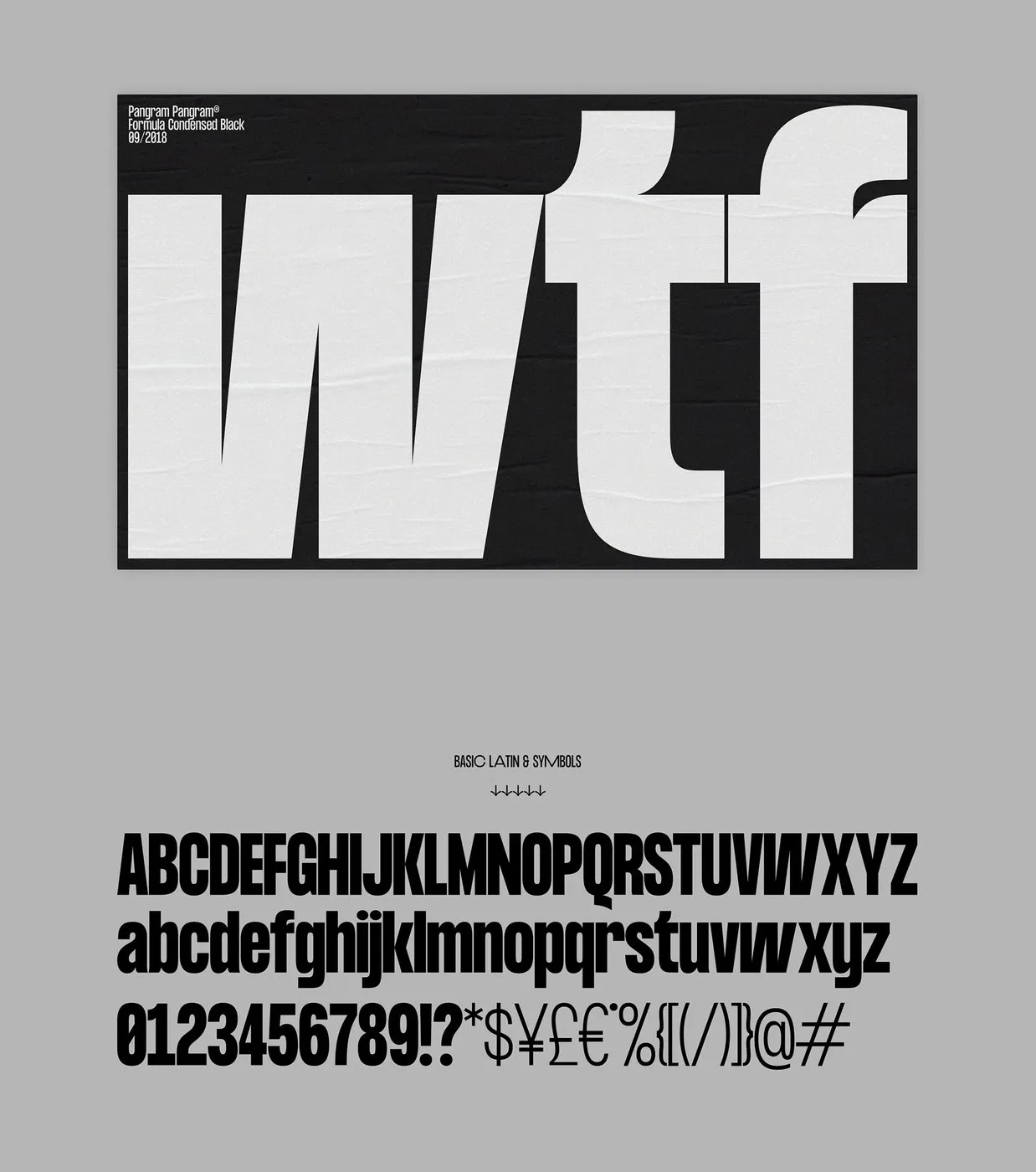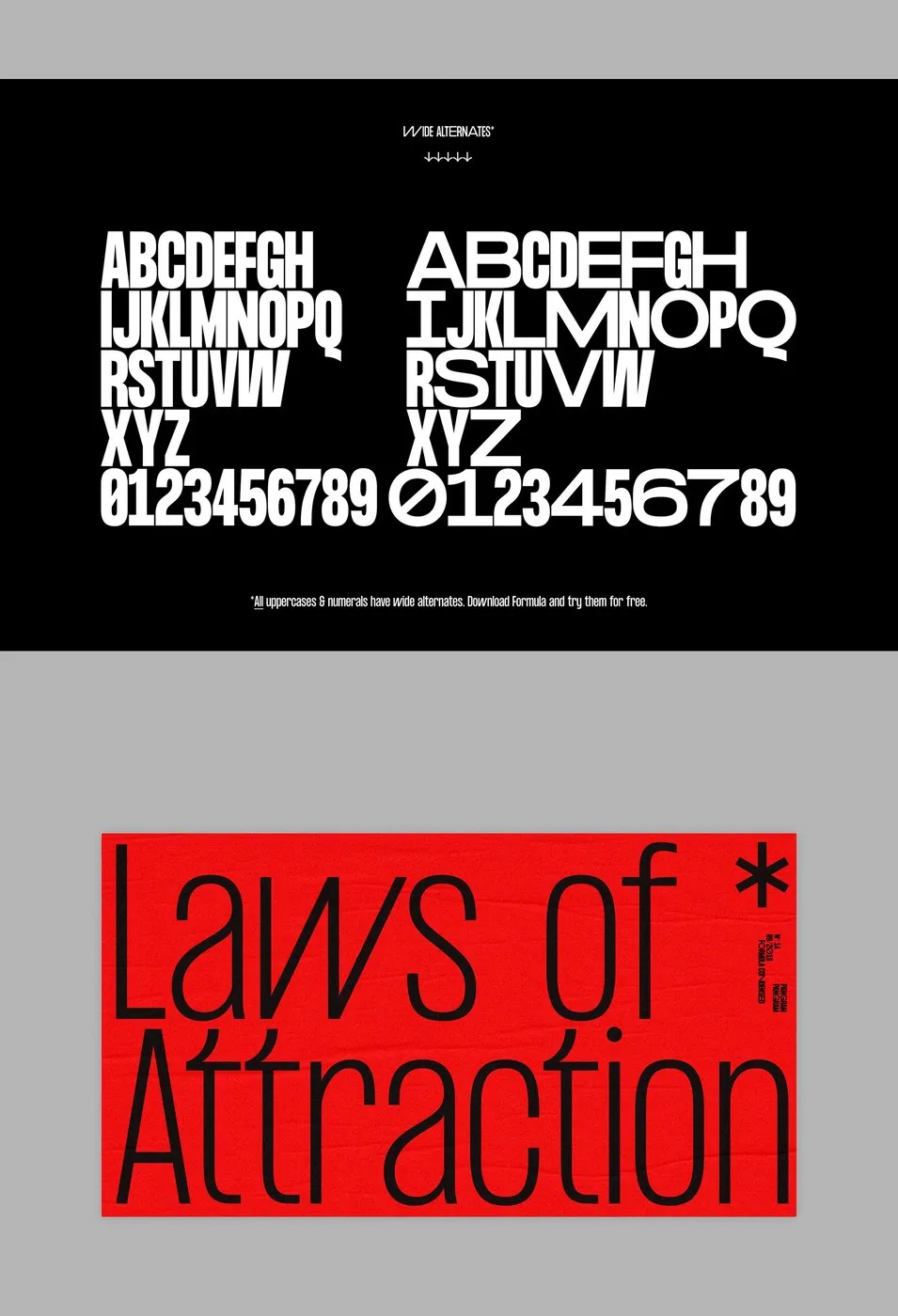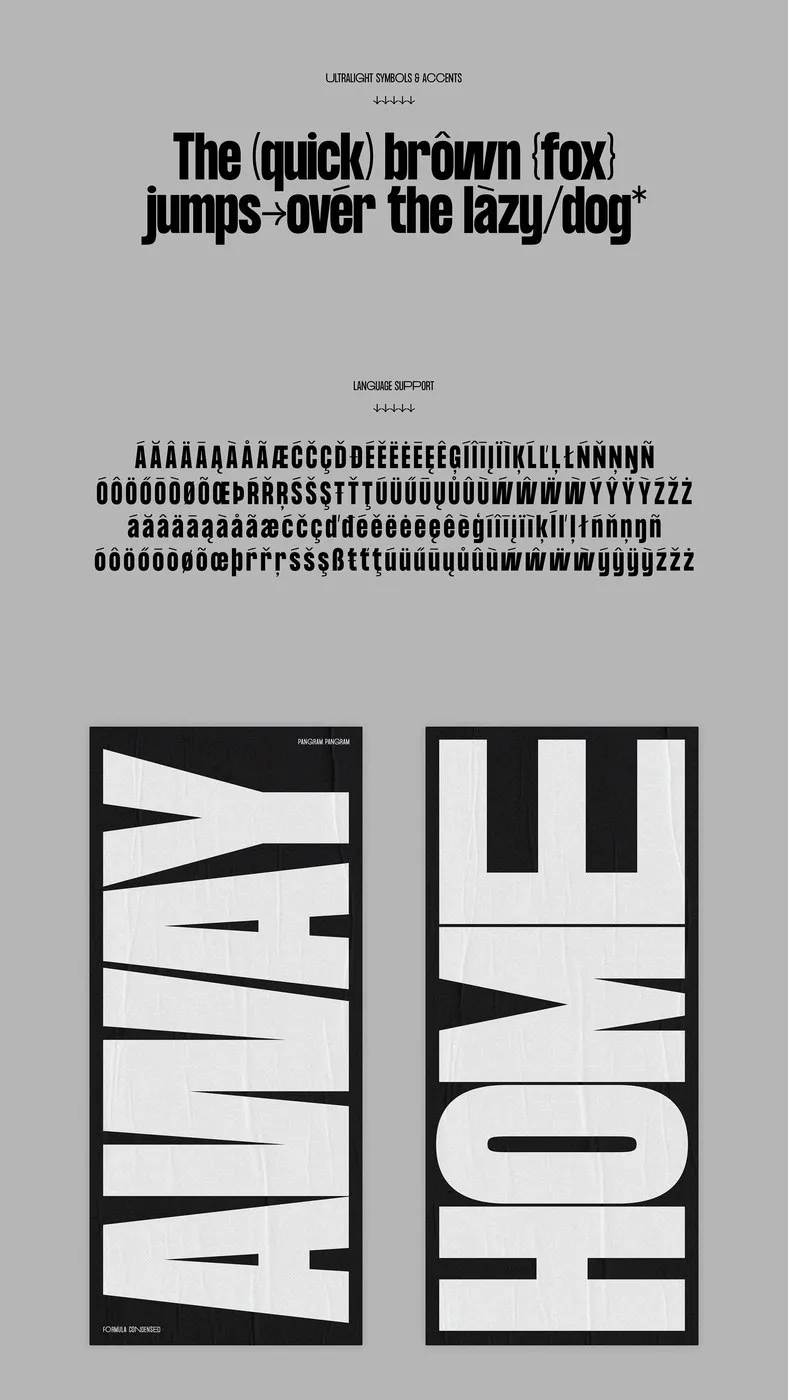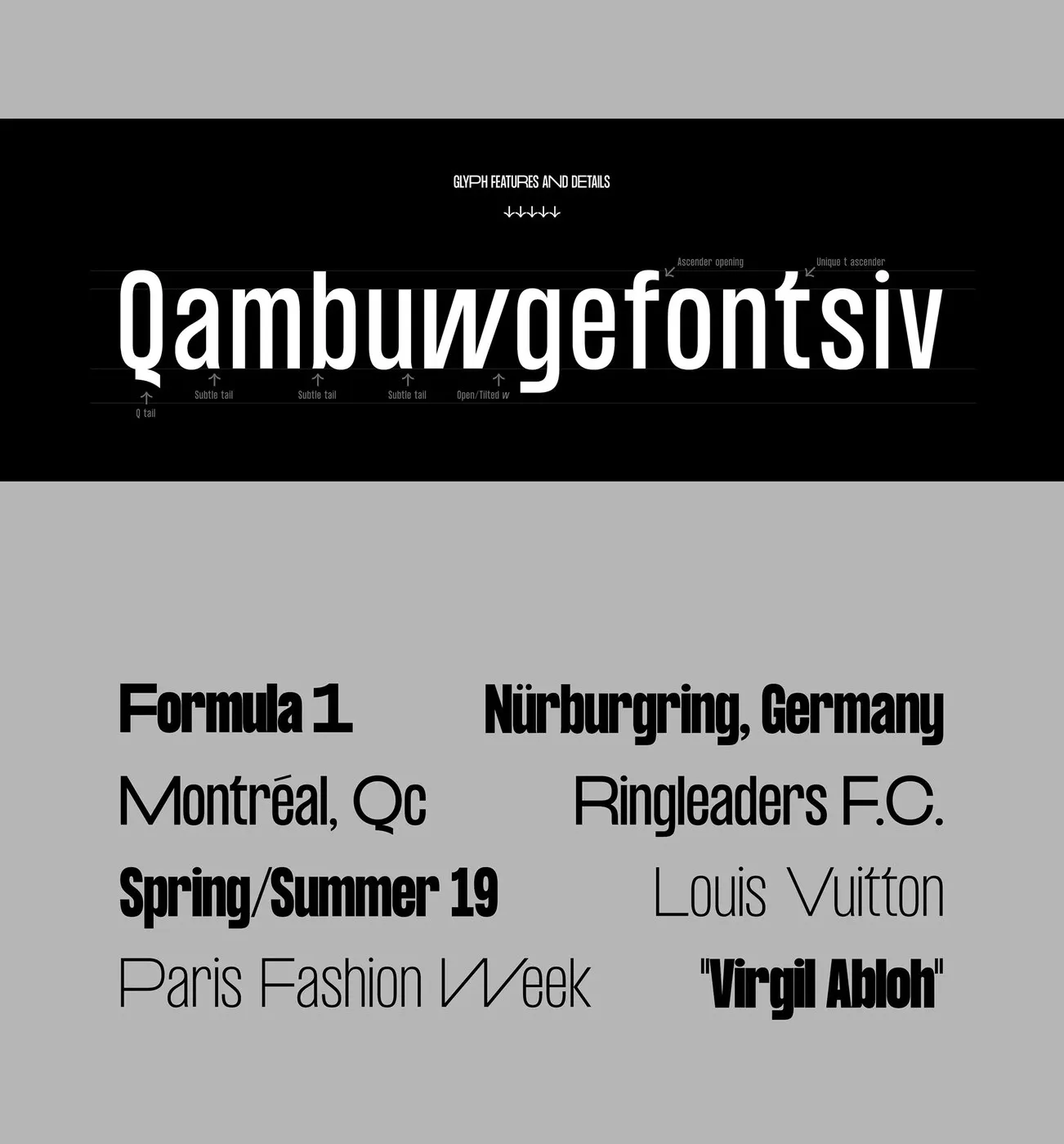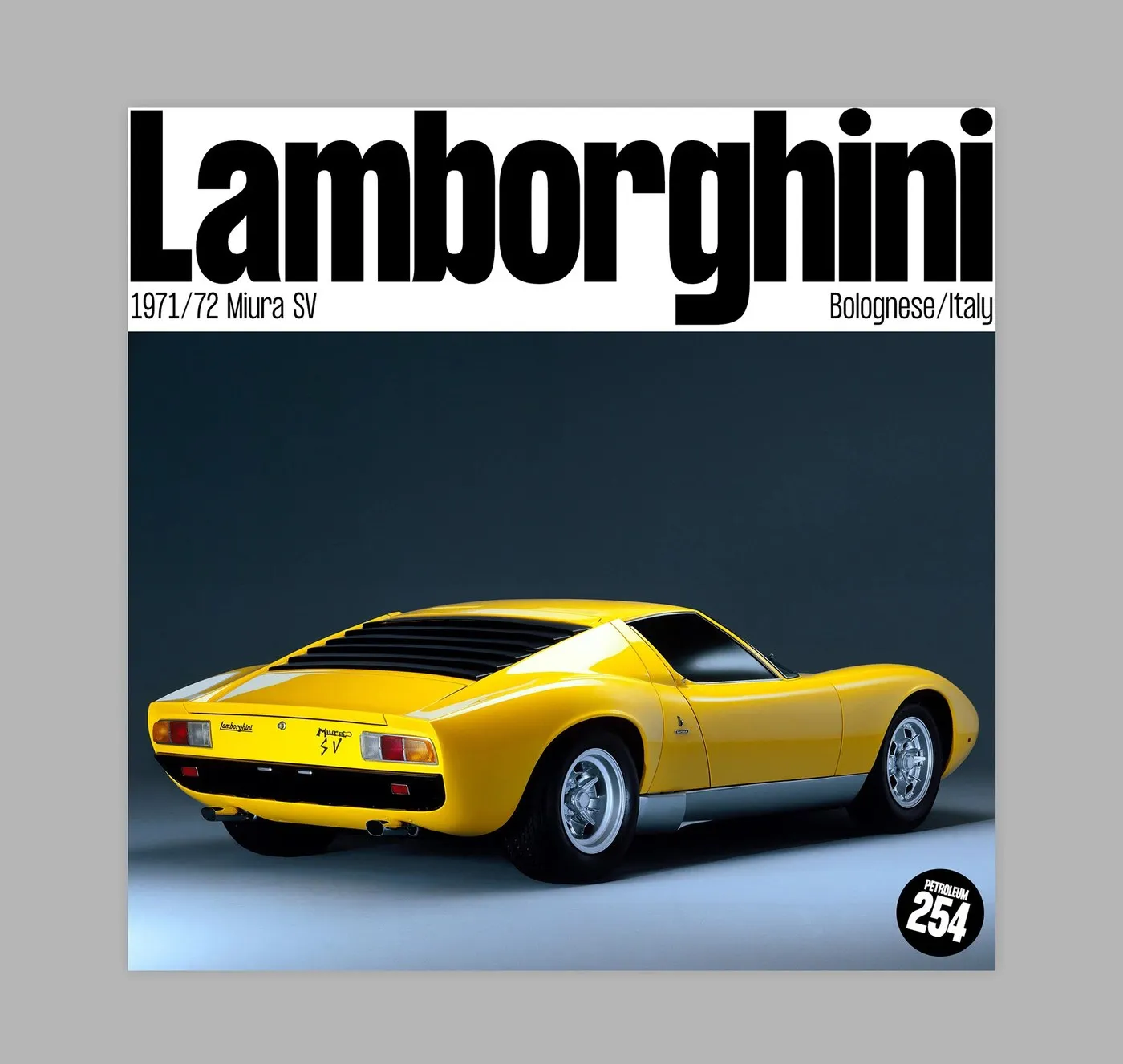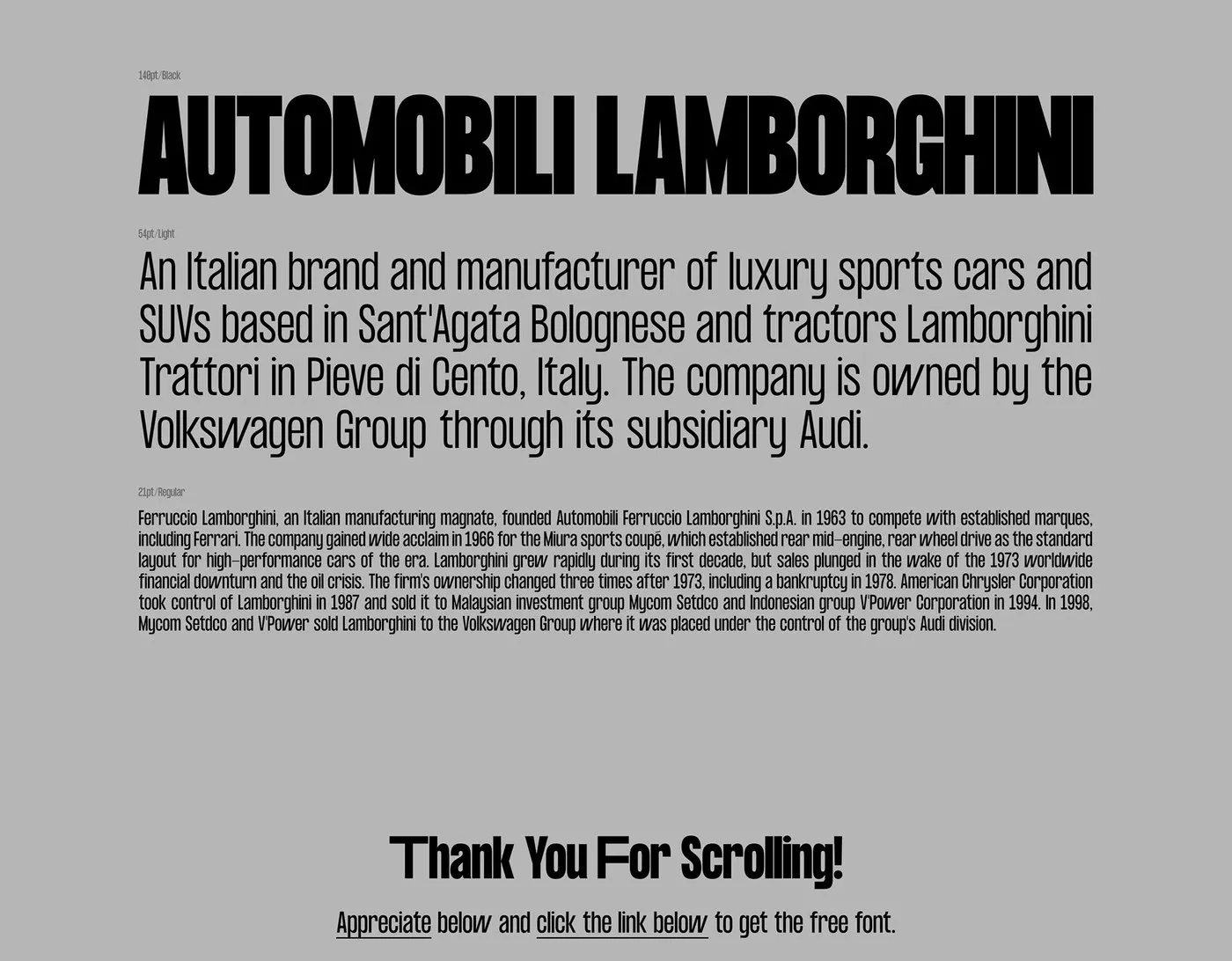
Formula Condensed: A High-Impact Display Typeface by Pangram Pangram
Formula Condensed: A Unique Display Font from Pangram Designed by Mathieu Desjardins, Formula Condensed by Pangram strikes a sweet spot between high-speed aesthetics and razor-sharp craftsmanship. This sleek grotesque typeface features a slim profile across five weights, with straight vertical stems designed to squeeze every bit of impact out of tight spaces.
What really gives Formula Condensed its character are the playful, clever details. The lowercase “t” stands out with an angled slice across the top, the lowercase “f” keeps counter-spaces neat with a shortened crossbar, sharp joints on the “w” preserve clarity when scaled down, and the uppercase “Q” rocks an extended tail for a solid visual anchor. Tight character spacing ensures everything stays crisp and readable, even at tiny sizes.
It also breaks out of the narrow box by offering eye-catching wide alternate characters. Designers can easily mix standard condensed letters with wider ones to create dynamic visual rhythms across poster designs and magazine layouts. This wide character set covers full uppercase Latin letters along with numbers 0 through 9. Spanning weights from airy Ultralight to punchy Black, Formula Condensed shifts effortlessly from complex data tables to massive headlines.
The team at Pangram showcased the font’s versatility in several real-world posters, including a stunning print for the classic Lamborghini Miura. On that layout, a commanding 140pt Black weight takes center stage for the title, 54pt Light handles the historical rundown, and 21pt Regular keeps the body text perfectly readable against a dark backdrop. Other showcase pieces dive into Formula 1 racing, Paris fashion, and sports club branding.
Formula Condensed: Bộ Font Display Độc Đáo Từ Pangram Pangram
Được phác thảo bởi Mathieu Desjardins, bộ font Formula Condensed từ Pangram là sự kết hợp khéo léo giữa nét thẩm mỹ tốc độ và sự chỉn chu trong chế tác. Bộ font grotesque này mang dáng vẻ thon gọn với 5 độ dày (weight) khác nhau, sở hữu các nét dọc thẳng giúp tối ưu không gian hiển thị trong những khung chữ hẹp.
Điểm tạo nên sự khác biệt cho Formula Condensed nằm ở những chi tiết tạo hình rất riêng. Chữ “t” viết thường gây chú ý với vết cắt vát ở đỉnh thân chữ, chữ “f” có thanh ngang ngắn giúp khoảng trắng bên trong gọn gàng hơn, các góc nối sắc nét ở chữ “w” giữ cho đường nét luôn rõ ràng khi thu nhỏ, còn chữ “Q” hoa sở hữu chiếc đuôi kéo dài tạo điểm neo thị giác chắc chắn. Khoảng cách giữa các chữ được căn chỉnh chặt chẽ, giúp chữ giữ được độ đọc rõ ràng ngay cả ở kích thước hiển thị nhỏ.
Bộ font này còn phá vỡ sự gò bó về độ rộng bằng việc bổ sung các ký tự thay thế (alternate) dạng bản rộng. Các designer có thể linh hoạt thay thế chữ hẹp tiêu chuẩn bằng các chữ bản rộng để tạo nhịp điệu thị giác ấn tượng trên poster hay dàn trang tạp chí. Dàn ký tự rộng này hỗ trợ toàn bộ bảng chữ cái Latin viết hoa cùng các chữ số từ 0 đến 9. Với dải weight trải dài từ Ultralight thanh thoát cho đến Black đậm đà, Formula Condensed dễ dàng ứng dụng cho nhiều mục đích, từ bảng dữ liệu phức tạp cho đến các tiêu đề cỡ lớn.
Đội ngũ Pangram đã thể hiện sức mạnh của bộ font qua nhiều poster thực tế, nổi bật là mẫu thiết kế dành riêng cho chiếc xe cổ Lamborghini Miura. Trên bản in này, nét Black cỡ 140pt đảm nhận phần tiêu đề vô cùng bắt mắt, nét Light cỡ 54pt dùng cho phần tóm tắt lịch sử, và nét Regular cỡ 21pt giúp phần nội dung vừa vặn, dễ đọc trên nền tối. Các mẫu thử khác còn khai thác chủ đề đua xe Công thức 1, thời trang Paris và các câu lạc bộ thể thao.